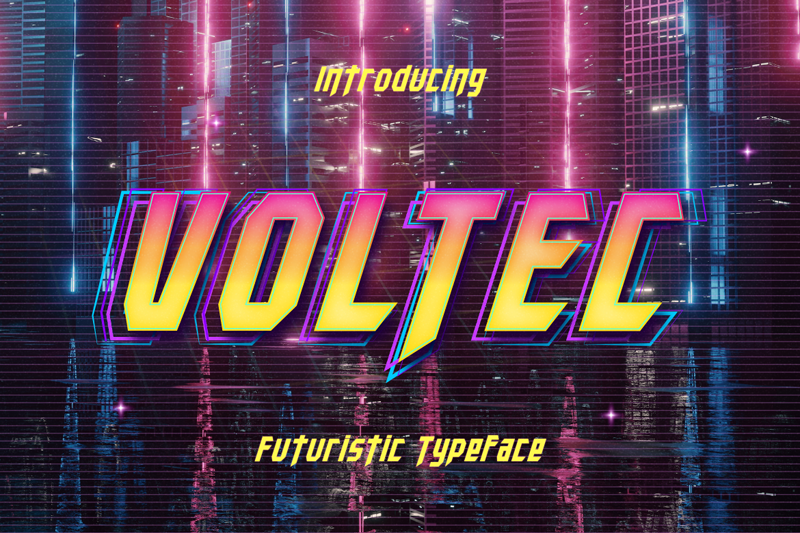
Font name: | Voltec |
Author: | Type Factory |
Note by Type Factory | |
Voltec is a sharp, angular, futuristic font in a modern style. Perfect for sci-fi themes and space adventures! Full Version Download Here : https://typefactory.co/product/voltec-futuristic-typeface/ https://www.creativefabrica.com/product/voltec/ref/501262/ |